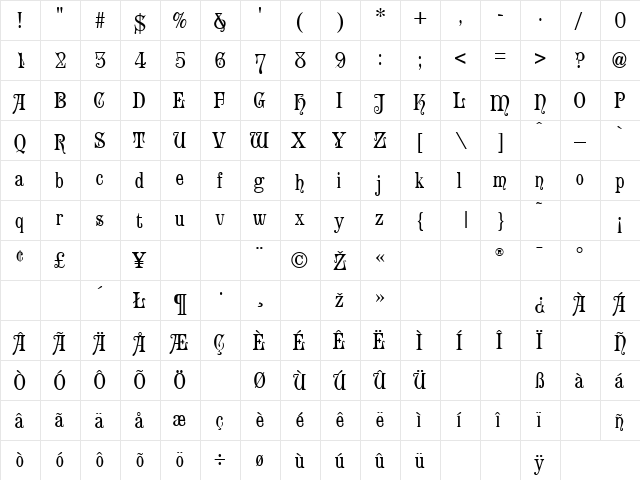
Templar Regular
Design Context for Templar Typeface
Templar is a composed and adaptable typeface that performs quietly and consistently across a wide range of design contexts.